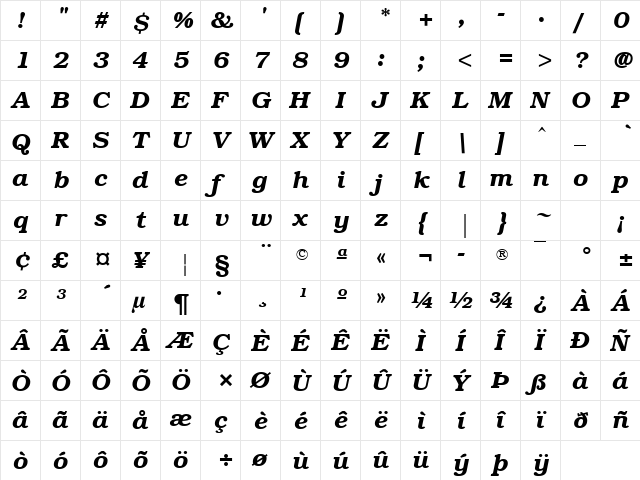
PC Brussels DemiItalic
Design Context for PC Brussels Typeface
PC Brussels is a composed and adaptable typeface that performs quietly and consistently across a wide range of design contexts. Its italic angle brings a sense of urgency and motion to the letterforms.
Pro Tip: Use PC Brussels for emphasis, pull quotes, and subheadings where its slanted energy can add rhythm to the layout.